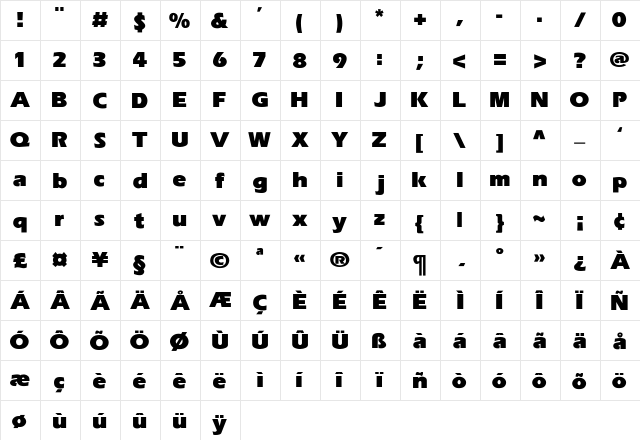
Eras-UltraBlk-Heavy Regular
Design Context for Eras-UltraBlk-Heavy Typeface
Eras-UltraBlk-Heavy offers clean, dependable letterforms without strong stylistic allegiance, making it a practical choice for designers who need flexibility.
Pro Tip: Use Eras-UltraBlk-Heavy in both headline and body roles to test its range before committing to a single application.